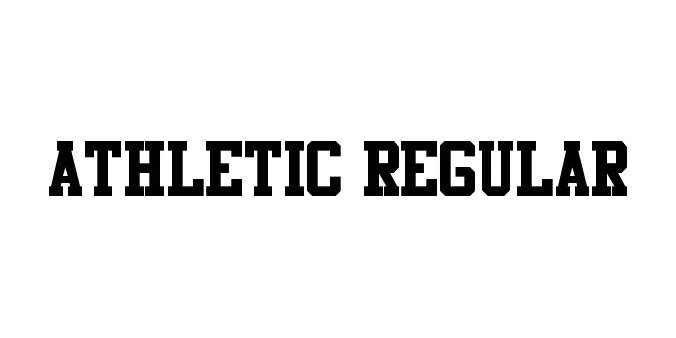
Athletic Regular
Designed by Graham Meade
| Category | Slab Serif / Display |
| Designer | Graham Meade |
| Similar Fonts | Varsity, Octin College, Jersey M54, Freshman, Graduate |
Athletic Regular is a definitive example of collegiate typography, drawing heavy inspiration from the traditional block lettering found on American university jerseys and sports uniforms. This typeface is characterized by its bold slab serifs and rigid, geometric construction, which provides maximum legibility and a sense of physical power. Historically, this style of lettering evolved from 19th-century wood type, eventually becoming the standard visual language for athletic programs across North America.
The font is engineered to evoke a sense of heritage, teamwork, and competitive spirit. Its heavy weight and sharp angles make it particularly effective for large-scale display use, such as stadium signage or team branding. In modern design, Athletic Regular has found a second life in streetwear and lifestyle branding, where it is used to channel a vintage or "old school" aesthetic that resonates with fans of classic sports culture.
Athletic Regular Best Uses
Perfect for creating logos, player numbers, and team names for various sports disciplines.
Excellent for varsity jackets, hoodies, and collegiate-themed t-shirts.
Impactful for headlines in sports magazines or university newsletters.
Ideal for posters, banners, and promotional materials for athletic competitions.